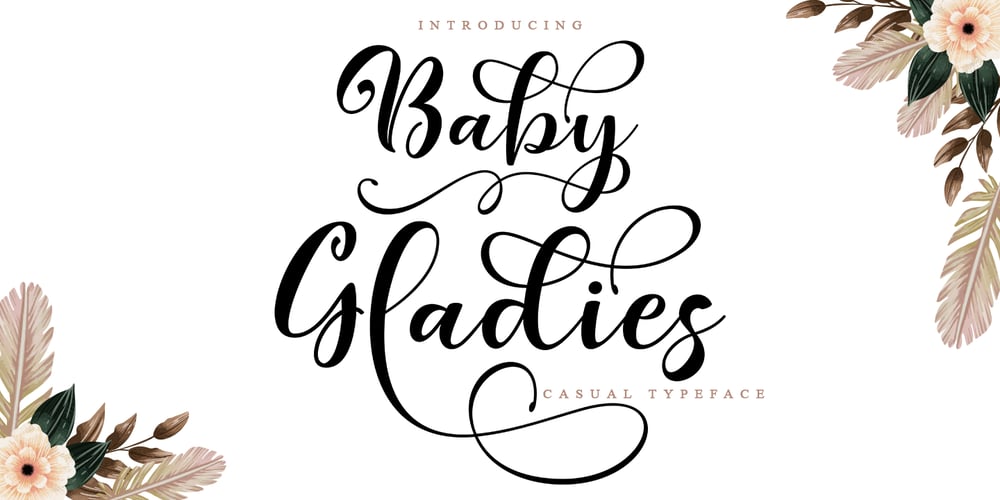
Baby Gladies Script Font Family was designed by Imam Muhajir and published by Straight.Co. Baby Gladies Script contains 1 styles and family package options. Baby Gladies a new fresh & modern script with a handmade calligraphy style, decorative characters and a dancing baseline! So beautiful on invitations like greeting cards, branding materials, business cards, quotes, posters, and more!!Baby Gladies comes with 456+ glyphs. The alternative characters were divided into several Open Type features such as Swash, Stylistic Sets, Stylistic Alternates, Contextual Alternates. The Open Type features can be accessed by using Open Type savvy programs such as Adobe Illustrator, Adobe InDesign, Adobe Photoshop Corel Draw X version, and Microsoft Word. And this Font has given PUA unicode (specially coded fonts). so that all the alternate characters can be easily accessed in full by a craftsman or designer.If you don’t have a program that supports OpenType features such as Adobe Illustrator and CorelDraw X Versions, you can access all the alternate glyphs using Font Book (Mac) or Character Map (Windows).To Access Alternate Characters Click The Link Below:Adobe illustrator CS https://www.youtube.com/watch?v=geL0Ye02RykAdobe illustrator CC https://www.youtube.com/watch?v=V25yiUh8BcEMs Word https://www.youtube.com/watch?v=HxkhZiCuwEwCoreldraw X7 https://www.youtube.com/watch?v=UBVsufJjonsAdobe Photoshop CC https://www.youtube.com/watch?v=BYKXl58AdNYIndesign CS https://www.youtube.com/watch?v=HgZTCxKG14QIf you have any questions, don’t hesitate to contact me by email.Thanks and happy designing :-)Thank you for purchasing!